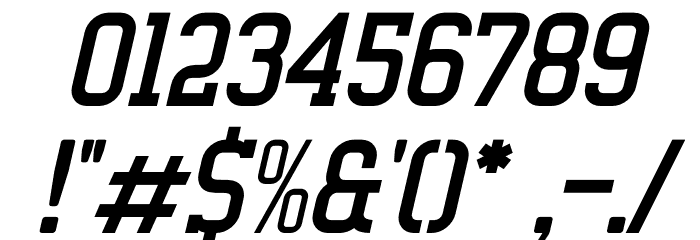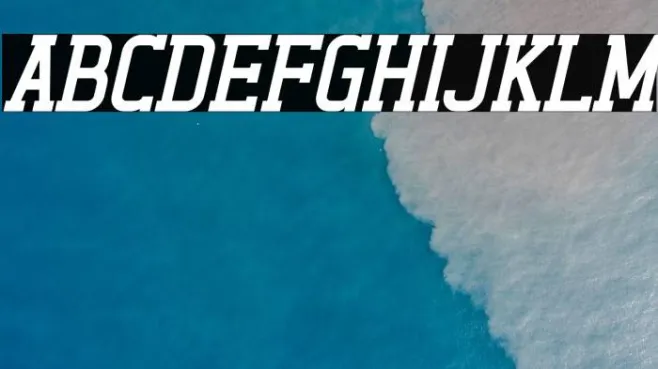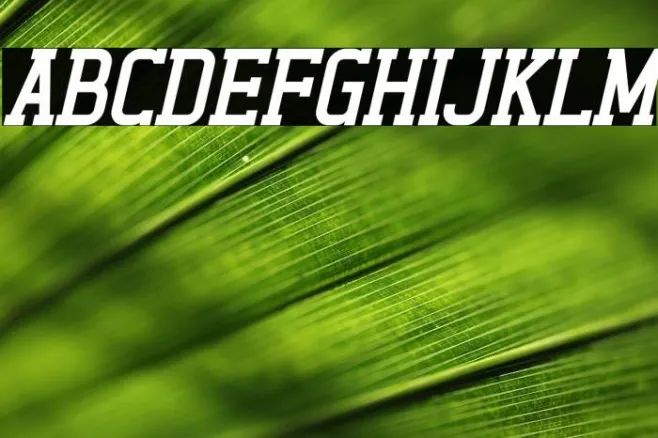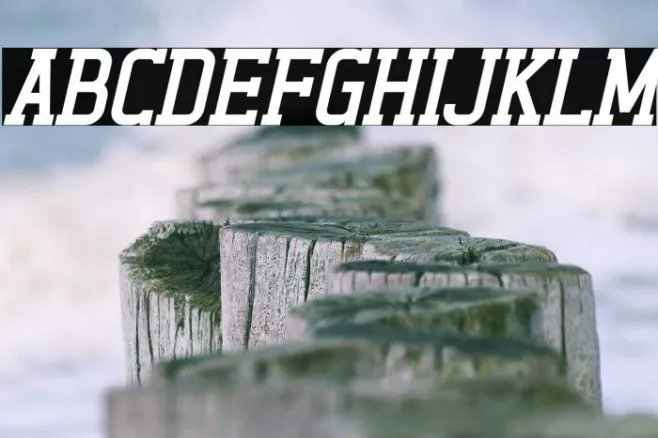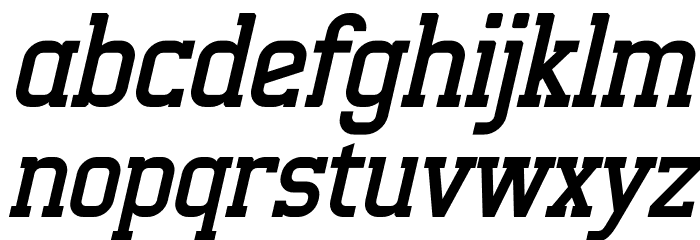
Alexside Italic Font
Alexside Italic Description
This font exhibits a dynamic and modern style with a distinct italic slant, giving it a sense of motion and energy. The characters are bold and have a slightly condensed appearance, which enhances their impact. The strokes are consistent in weight, providing a uniform look across all characters. The uppercase letters are tall and commanding, while the lowercase letters maintain a balanced and cohesive design. The numerals are clear and legible, matching the overall style. Special characters are well-integrated, ensuring versatility in various design contexts.
| Proposed Projects | Ideal for sports branding, dynamic posters, modern advertising, and any project requiring a bold, energetic typeface. |